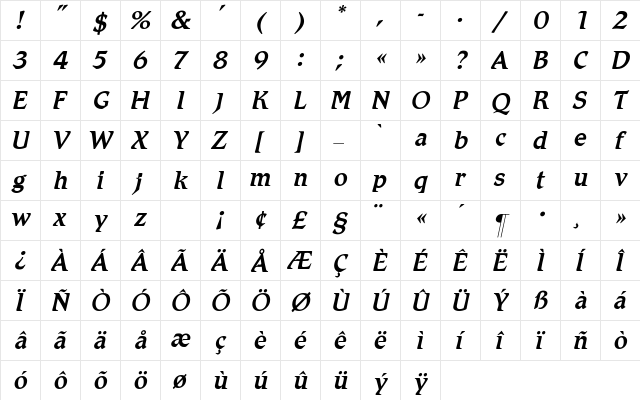
Romic-MediumItalic Regular Font Preview
Romic-MediumItalic Regular
Design Context for Romic-MediumItalic Typeface
Romic-MediumItalic is a composed and adaptable typeface that performs quietly and consistently across a wide range of design contexts. The dynamic lean of this cut emphasises speed and emphasis in any layout.